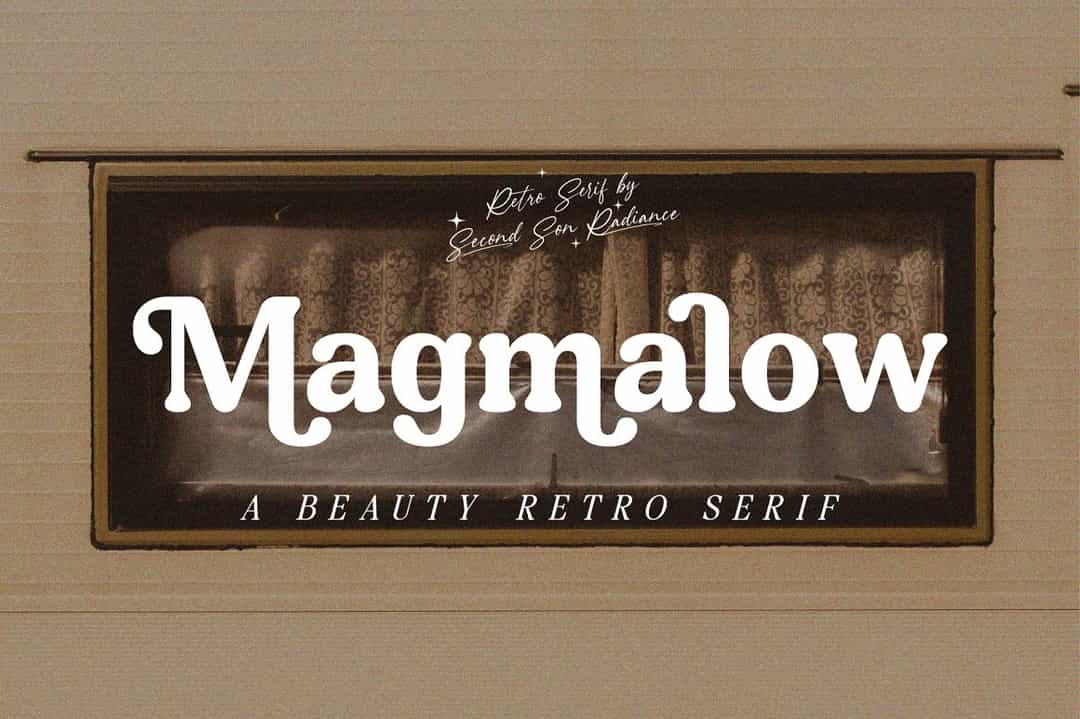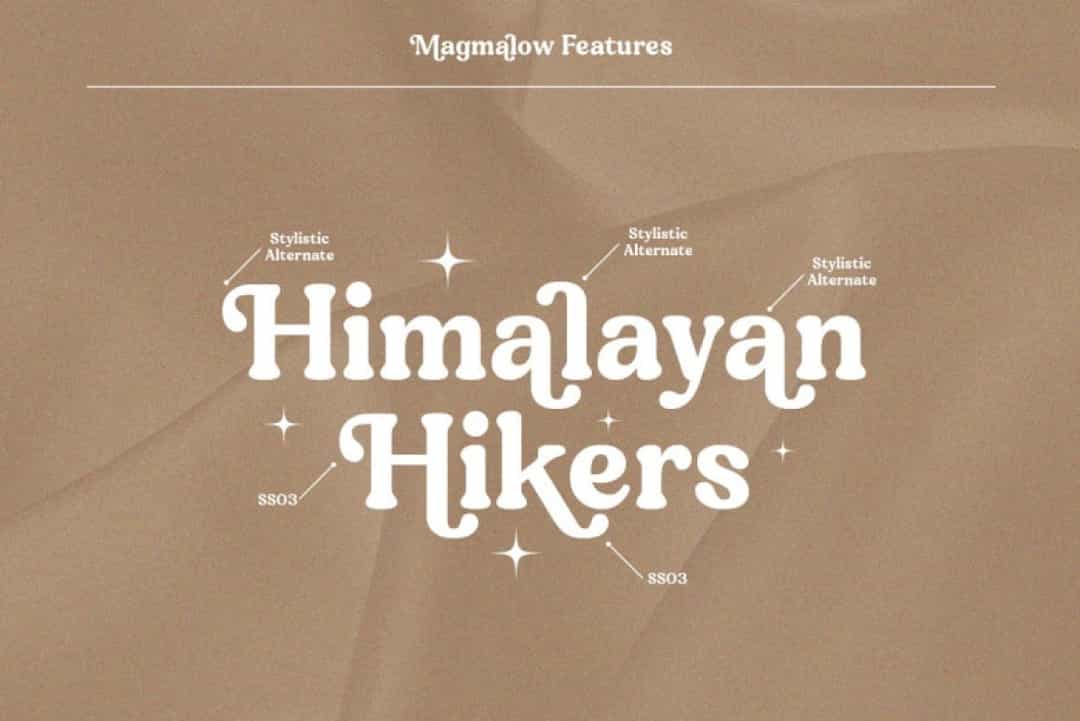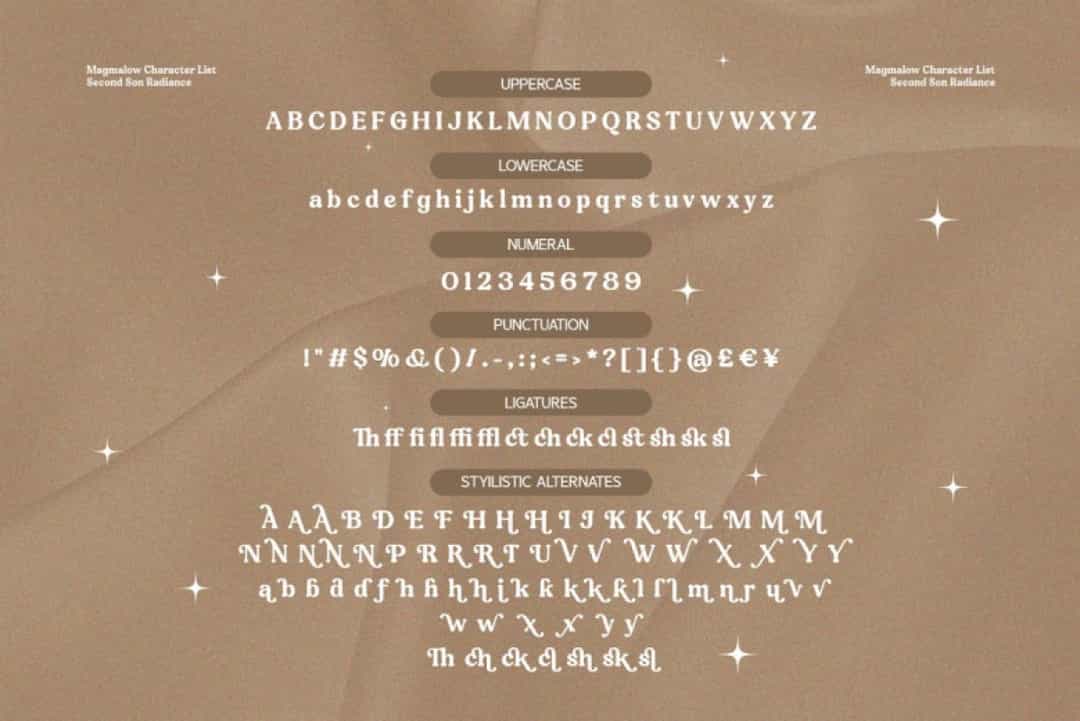
Magmalow is an elegant, retro-styled serif typeface featuring an eye-catching 80s vibe – the ideal font for retro branding and logos, elegant posters from the 80s FnB brands as well as art gallery branding, designs for stationery boutique branding blogs modern advertisements card invitation artwork interior decor book covers titles special events special occasion stationery design as well as much more!